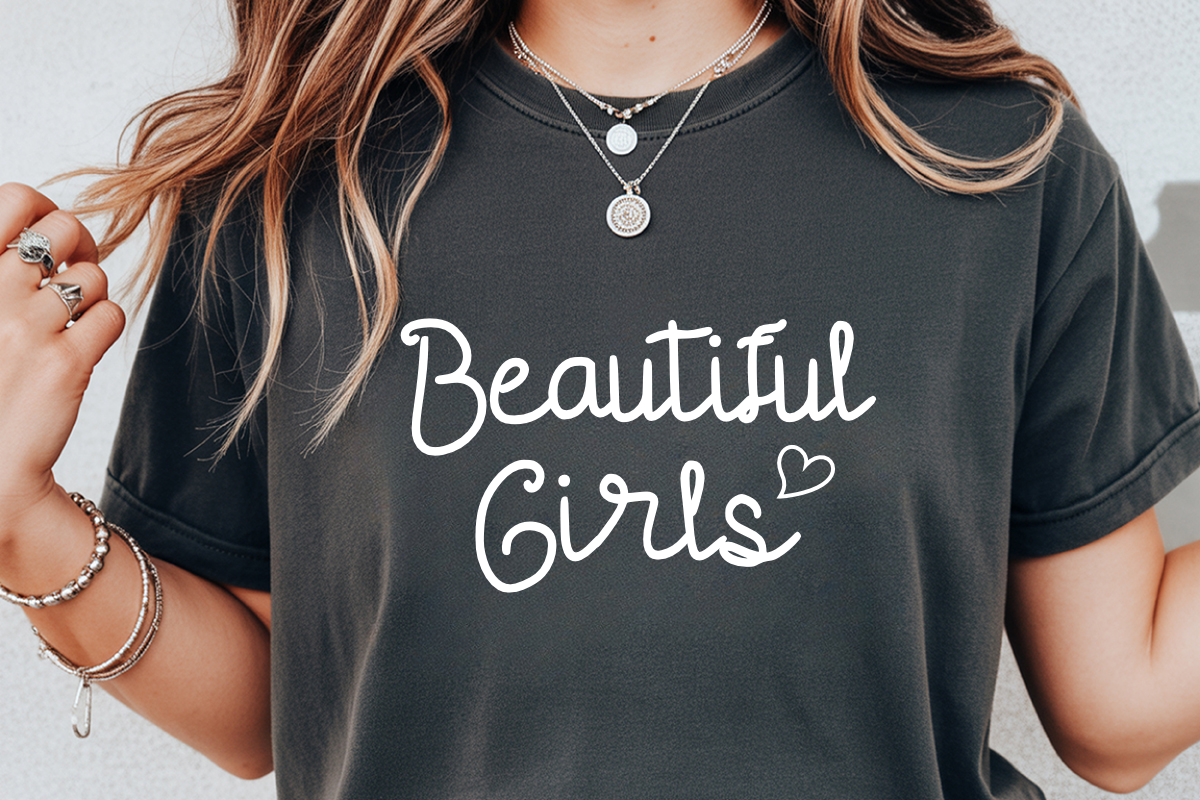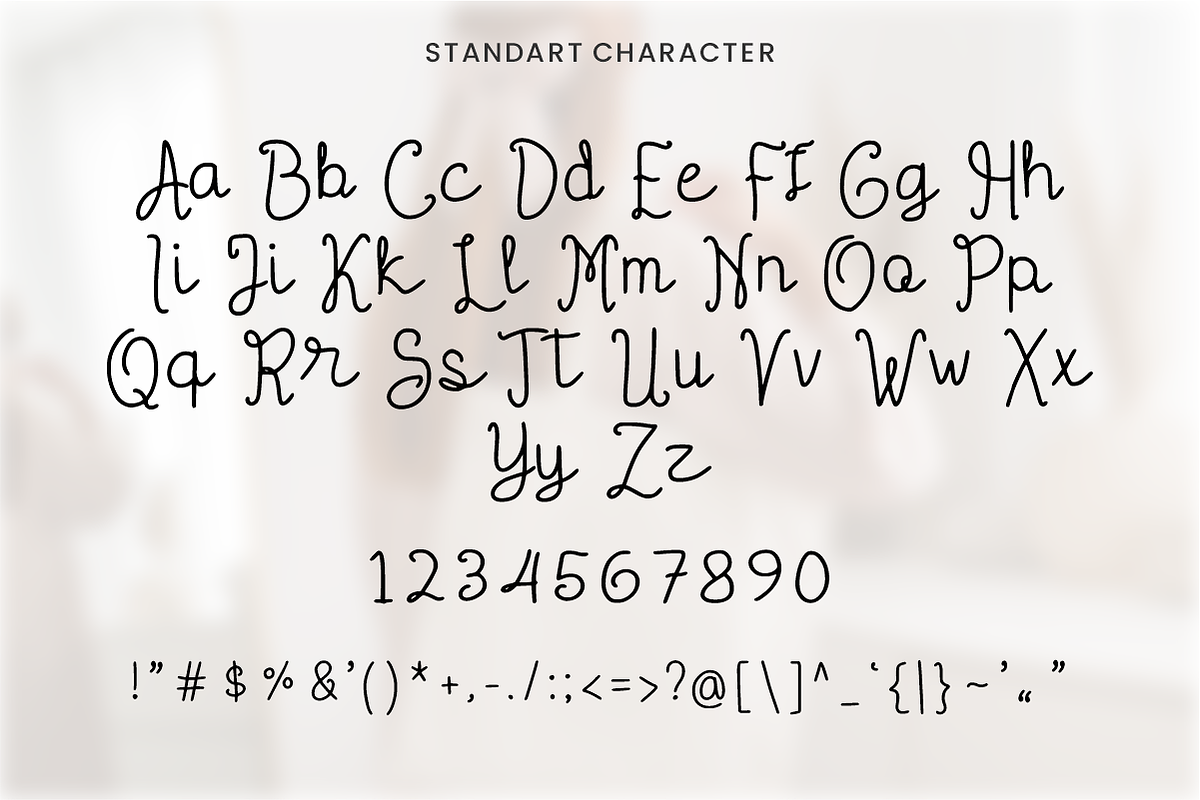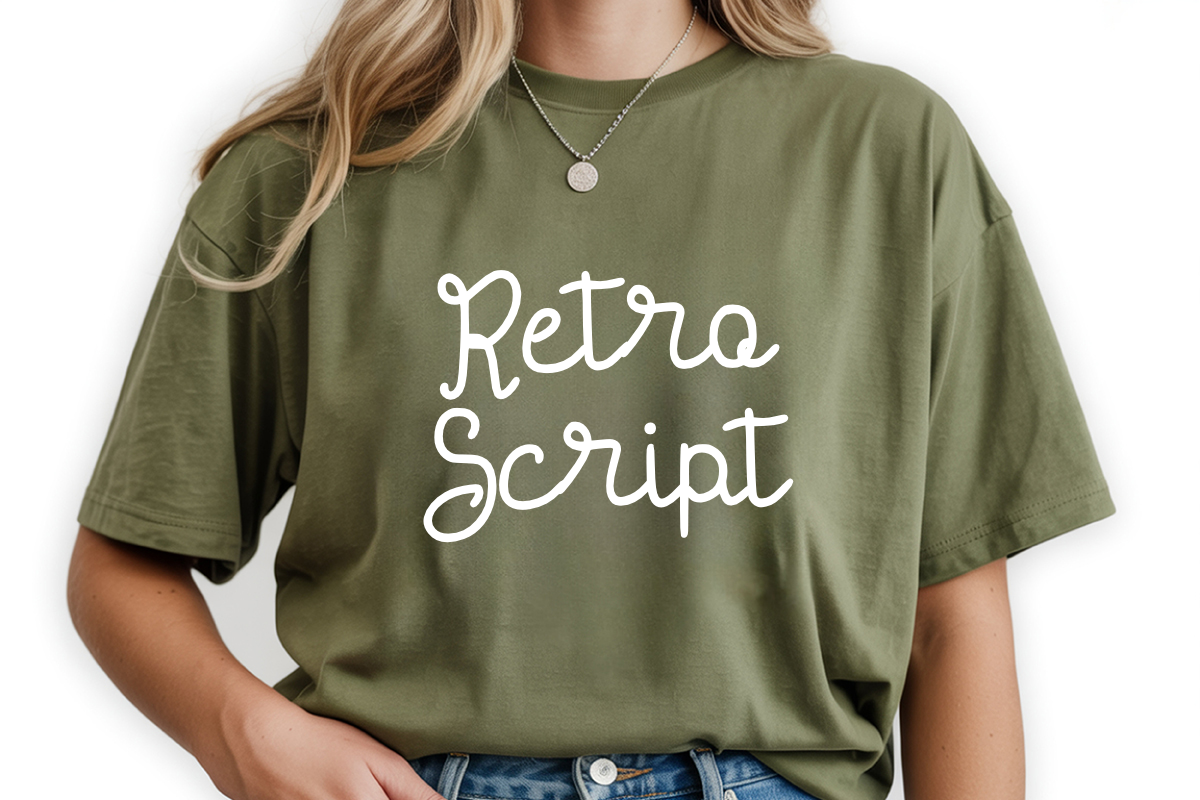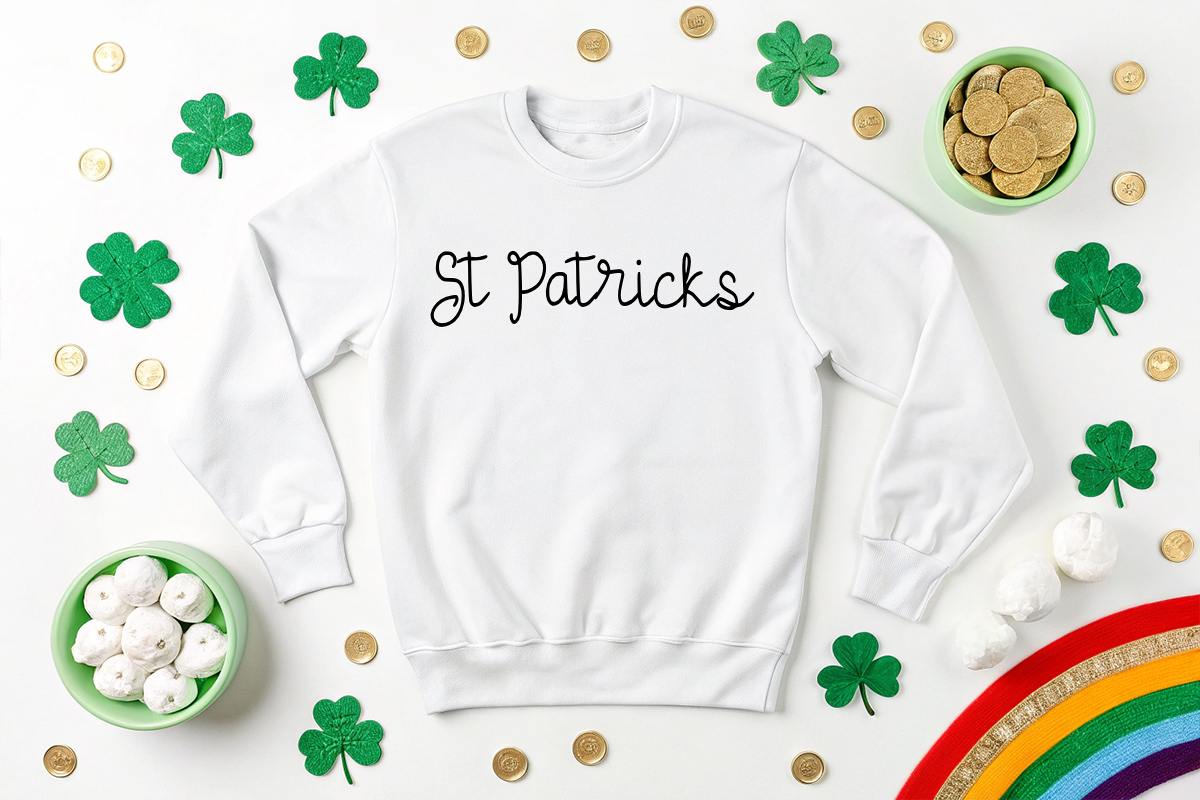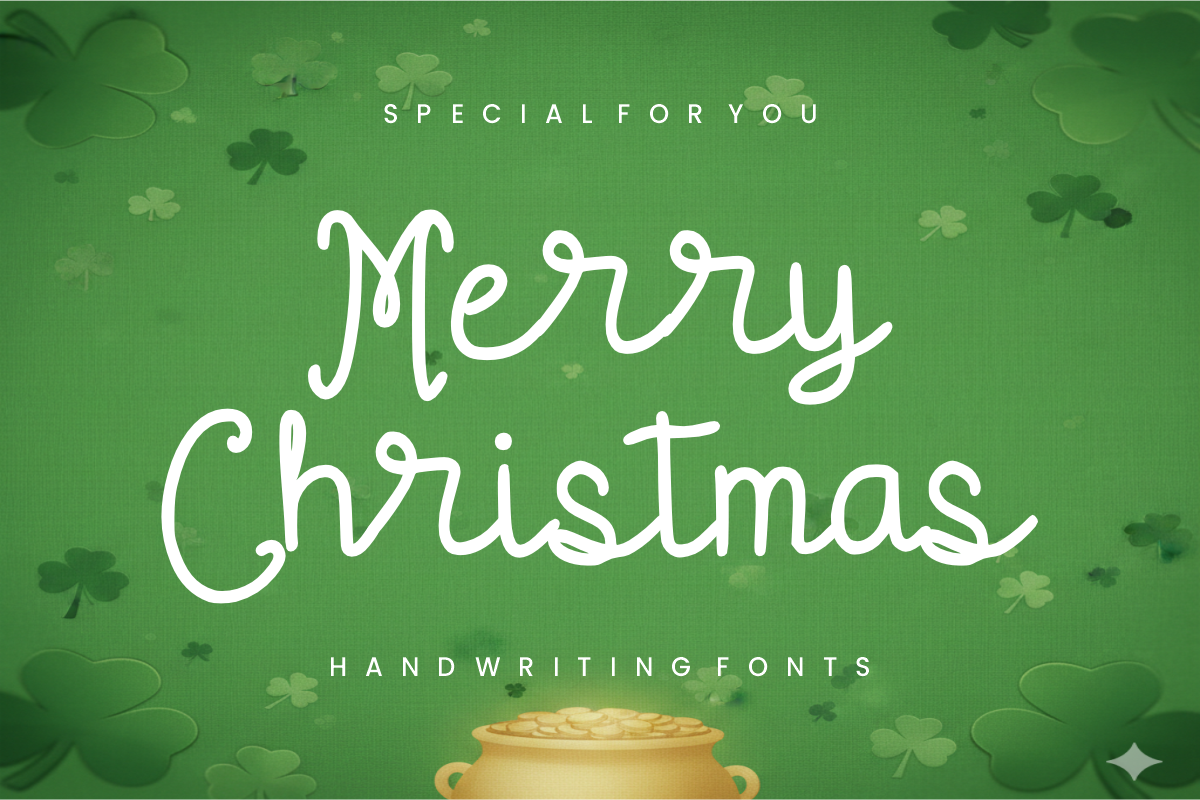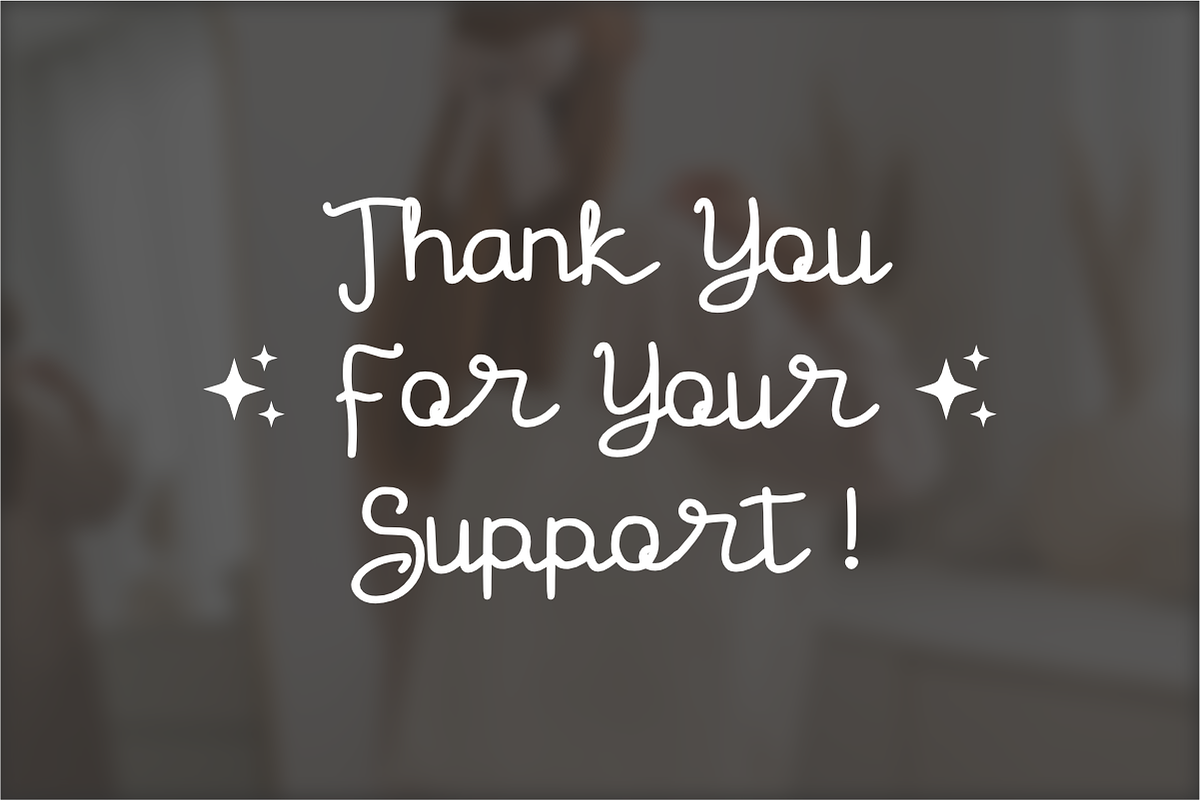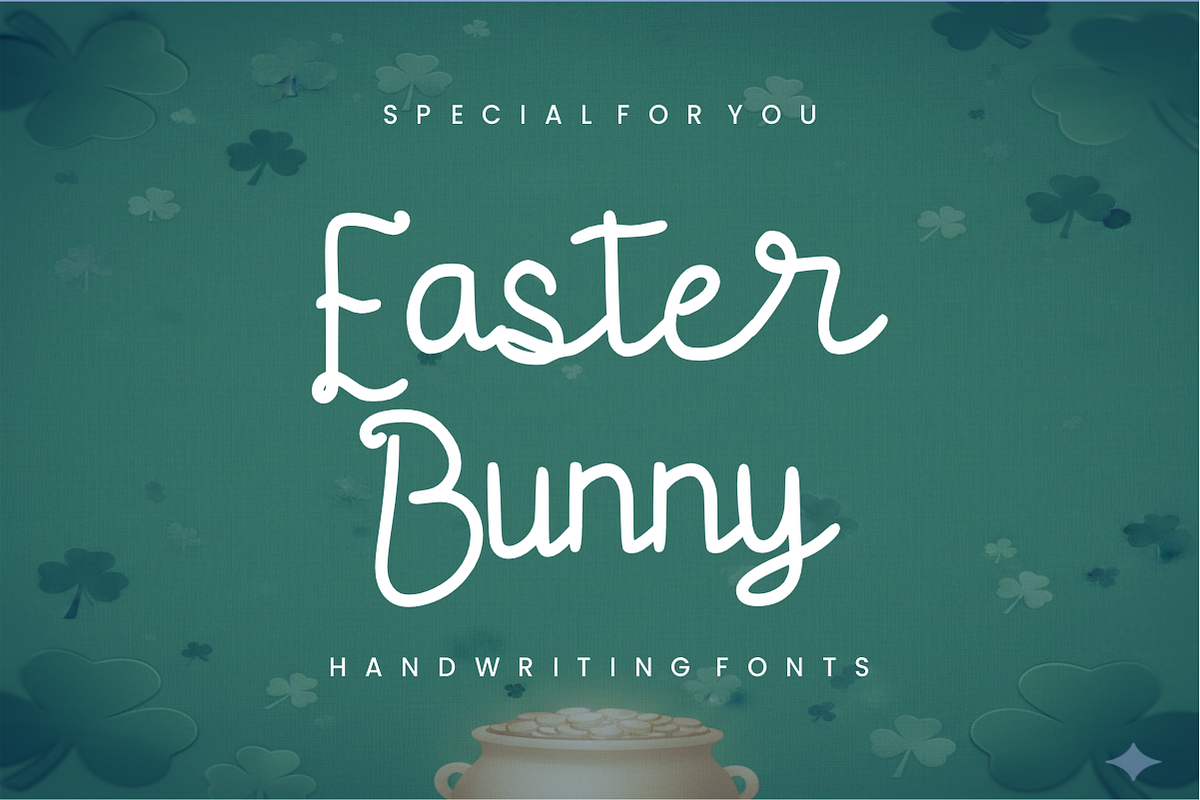
St Patricks - Handwriting
🍀 St Patricks Script – Lucky & Playful Handwriting Font ✨ Bring a touch of Irish luck to your designs! 🎩
St Patricks Script is a charming and fluid handwriting font designed to capture the cheerful spirit of St. Patrick's Day. With its natural flow and friendly curves, this script font adds a personal, handmade touch to any project. It’s the perfect balance between casual fun and clean legibility, making your designs feel warm and welcoming.
Whether you're crafting festive party invites, lucky branding, or seasonal merchandise, St Patricks Script is your go-to font for a "paws-itively" magical aesthetic!
🌈 Why You'll Love It: Natural Flow: A smooth, hand-drawn script that feels authentic.
Complete Essentials: Includes All Uppercase Letters, Numbers, and Simple Symbols.
Festive & Versatile: Ideal for both holiday themes and everyday elegant branding.
🎨 Perfect For: 🍀 St. Patrick's Day Invitations & Decor
🍺 Pub, Brewery, & Event Branding
👕 Custom T-shirts & Seasonal Merchandise
📱 Social Media Quotes & Holiday Graphics
💌 Greeting Cards & Personal Stationery